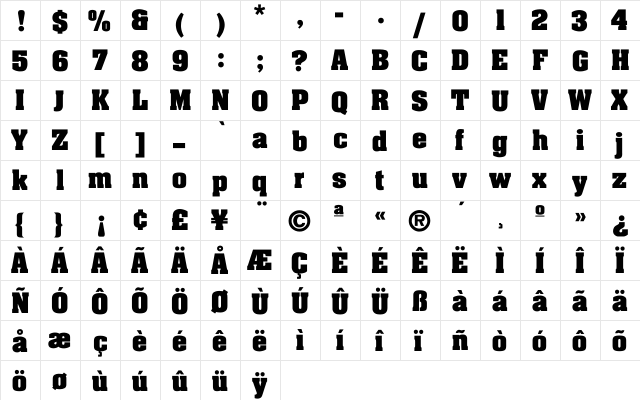
Johnny-Bold Regular
Design Context for Johnny-Bold Typeface
Johnny-Bold is a composed and adaptable typeface that performs quietly and consistently across a wide range of design contexts. The heavy weight commands attention and anchors typographic hierarchies.